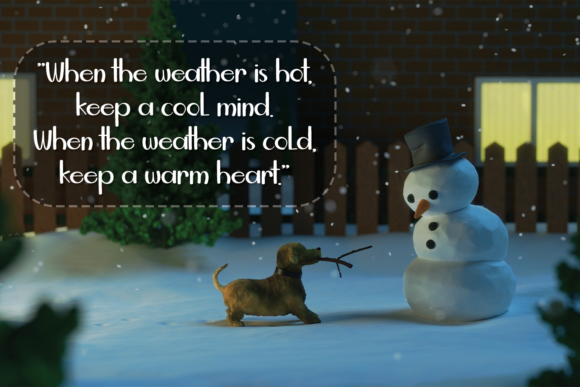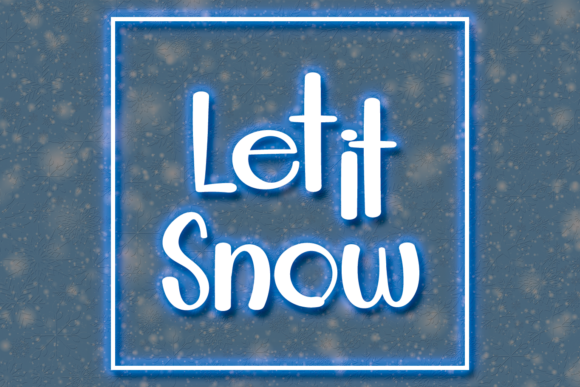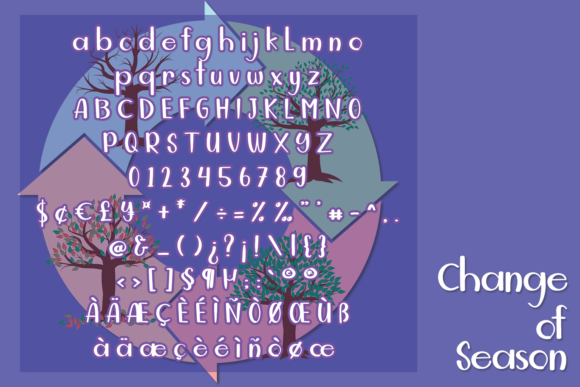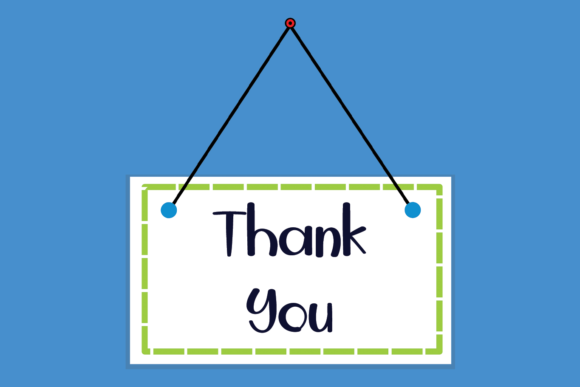
Hello Winter Font
About Hello Winter Font
Hello Winter is a cool, friendly, and sweet display font. It embodies playfulness and authenticity and is the perfect choice for any children’s activity or school project.